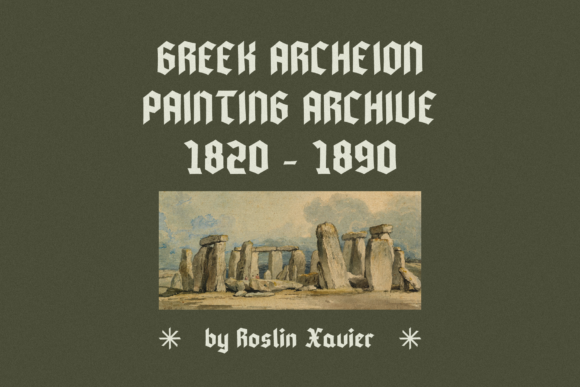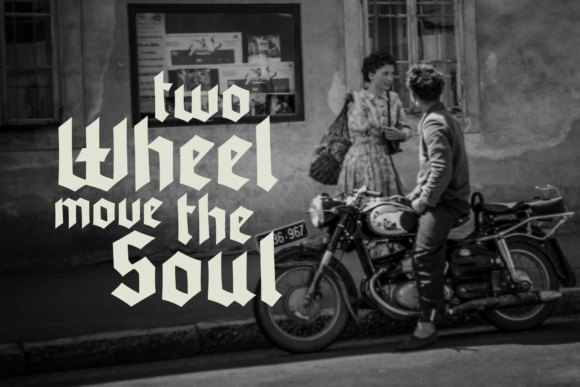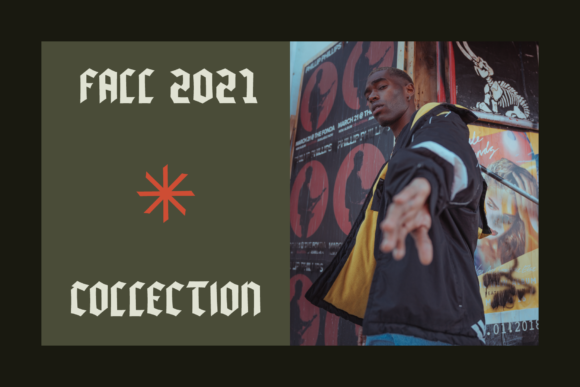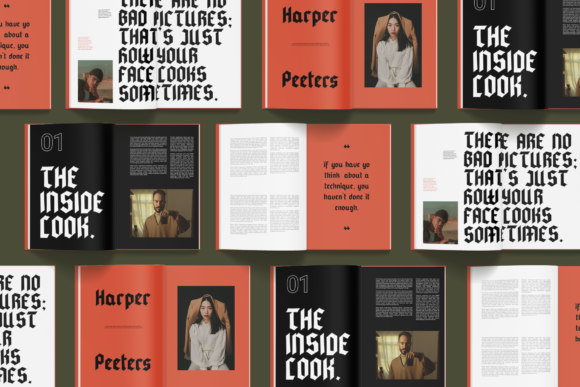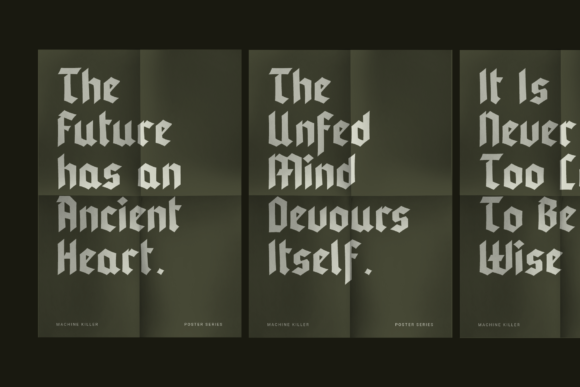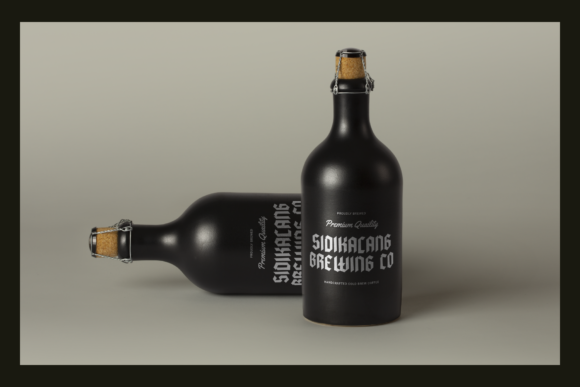
Unlocking the Power of Machine Killer Font
As a designer, have you ever been stuck on a project, struggling to find the perfect font to bring your vision to life? I know I have. There’s nothing quite like the thrill of creating something new, only to have it fall flat because of the wrong font choice. But what if I told you that there’s a font out there that could change the game for your next creative project? Introducing the Machine Killer Font, a highly detailed blackletter font that’s sure to elevate your work to new heights.
- High-quality, unique font design ideal for creative projects, offering a distinct and edgy aesthetic.
- Unique characteristics include bold lines, geometric shapes, and a futuristic feel, making it perfect for futuristic or sci-fi themed designs.
Honest Review: Machine Killer Font
As a designer, I’m always on the lookout for high-quality design resources to elevate my creative projects. Recently, I stumbled upon the Machine Killer Font, and I’m excited to share my honest review with you.
What works well: ✨ The Machine Killer Font is available for free download, making it a fantastic addition to any designer’s toolkit. The font features a sleek, modern design with a transparent background, allowing for seamless integration into any design project.
However, I did encounter some limitations: ⚠️ The font is a bit limited in its customization options, which may be a drawback for designers who require a high degree of flexibility. Additionally, the font’s style may not be suitable for all creative projects, particularly those with a more traditional or vintage aesthetic.
Overall, I’m impressed with the Machine Killer Font’s potential as a design resource. While it may not be perfect, it’s a great option for designers who are looking for a free, high-quality font to add to their toolkit.
The Machine Killer Font is a high-quality, free download design resource perfect for any creative project. With its unique and bold style, it’s ideal for making a statement in your designs.
The Machine Killer Font is perfect for:
- Creating bold and eye-catching graphics for social media
- Making a statement in presentations and documents
- Designing logos and branding materials